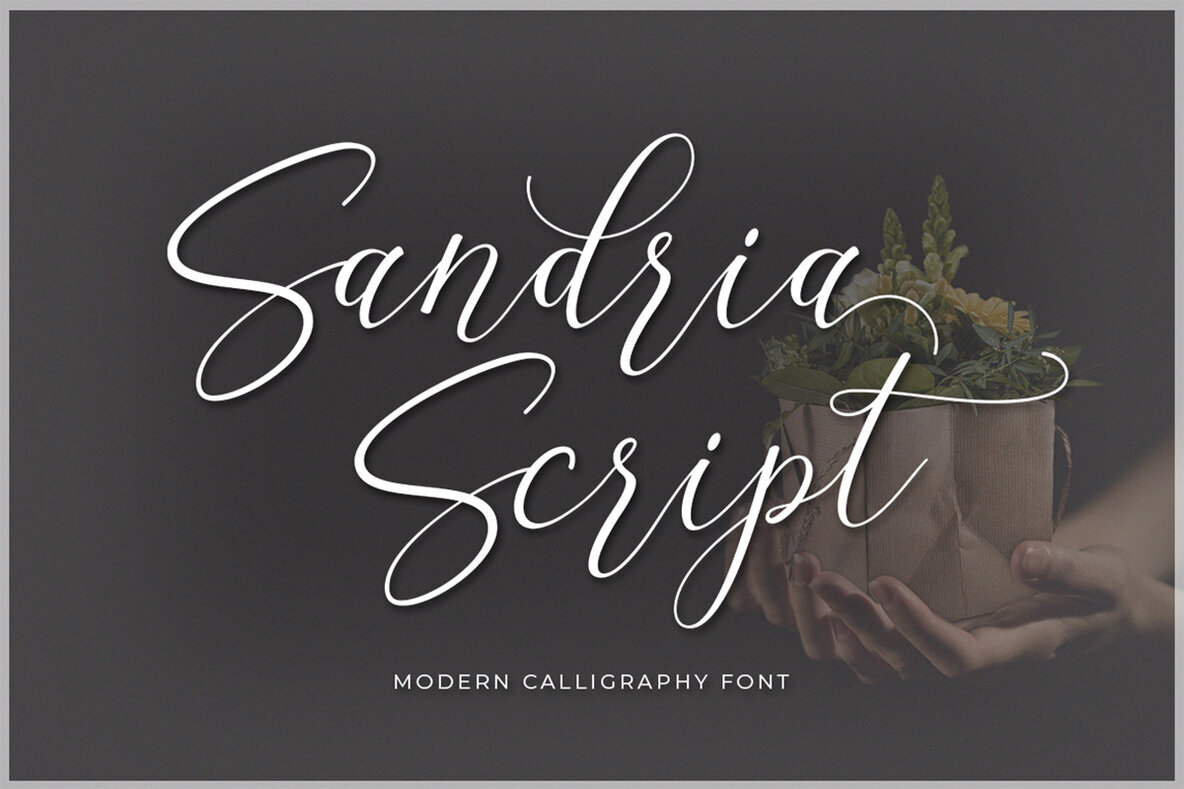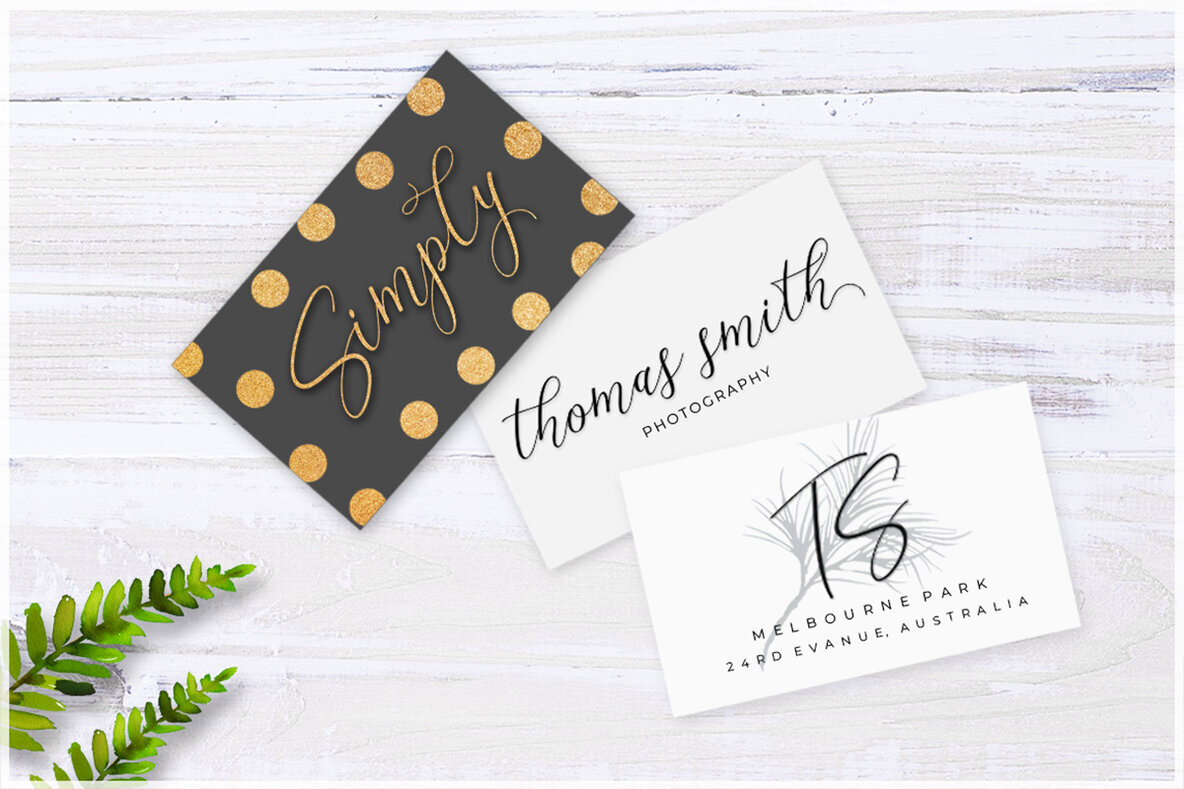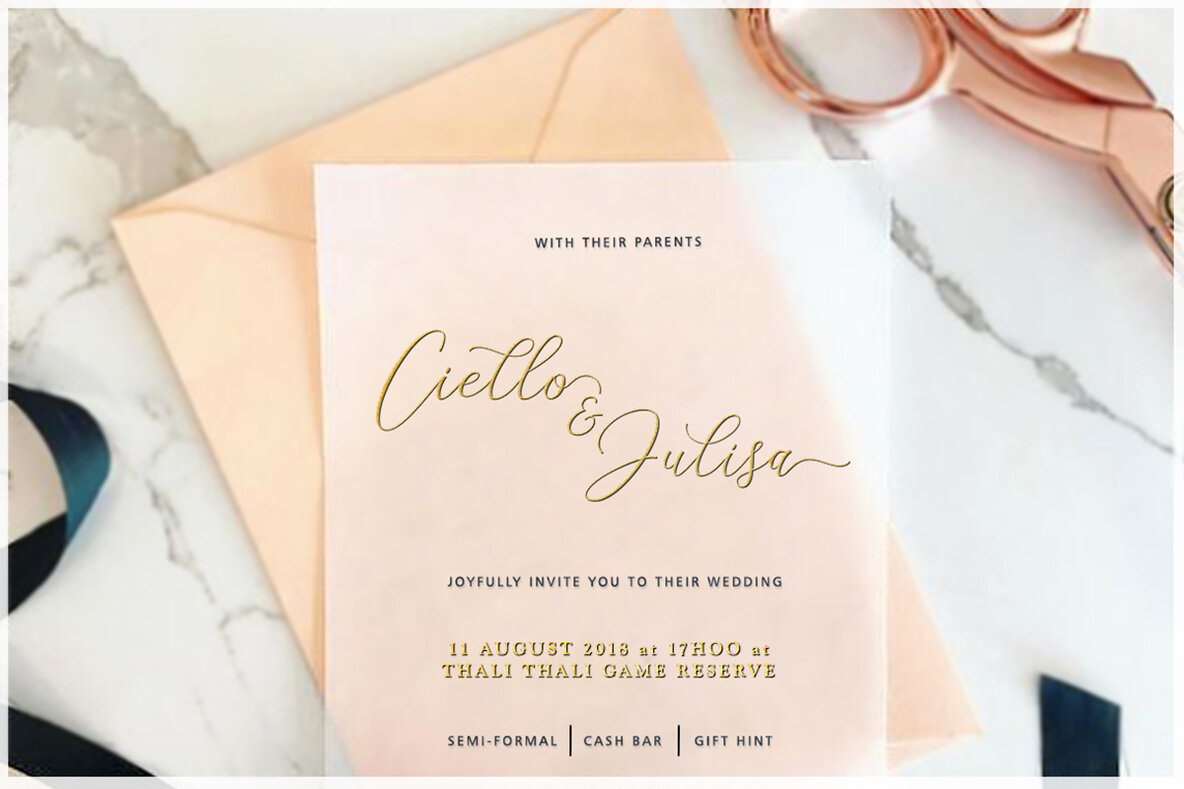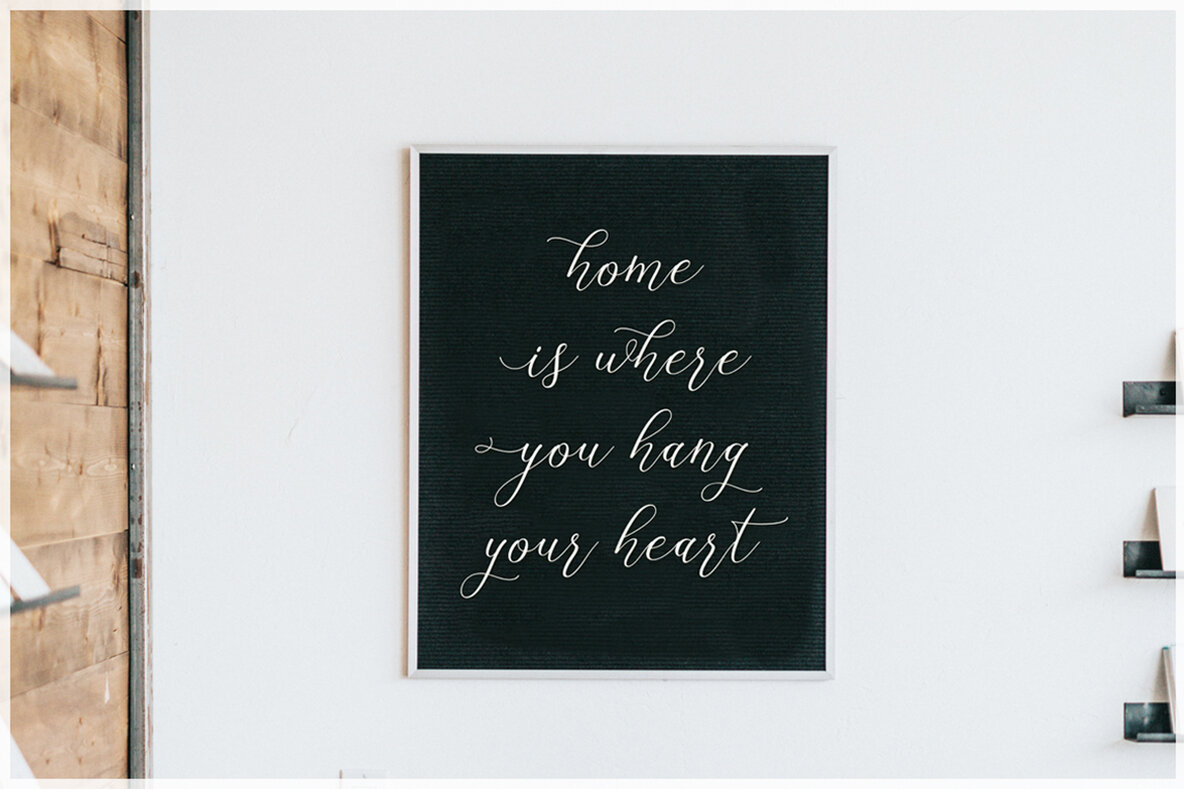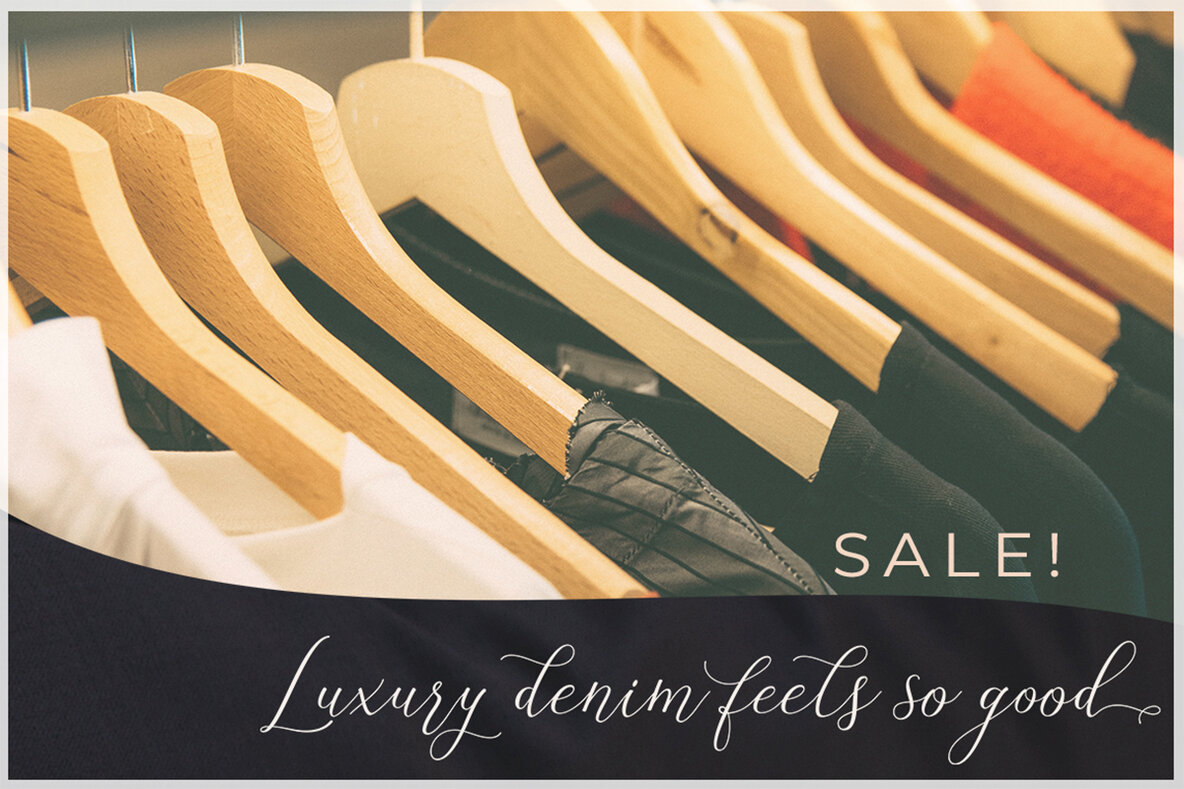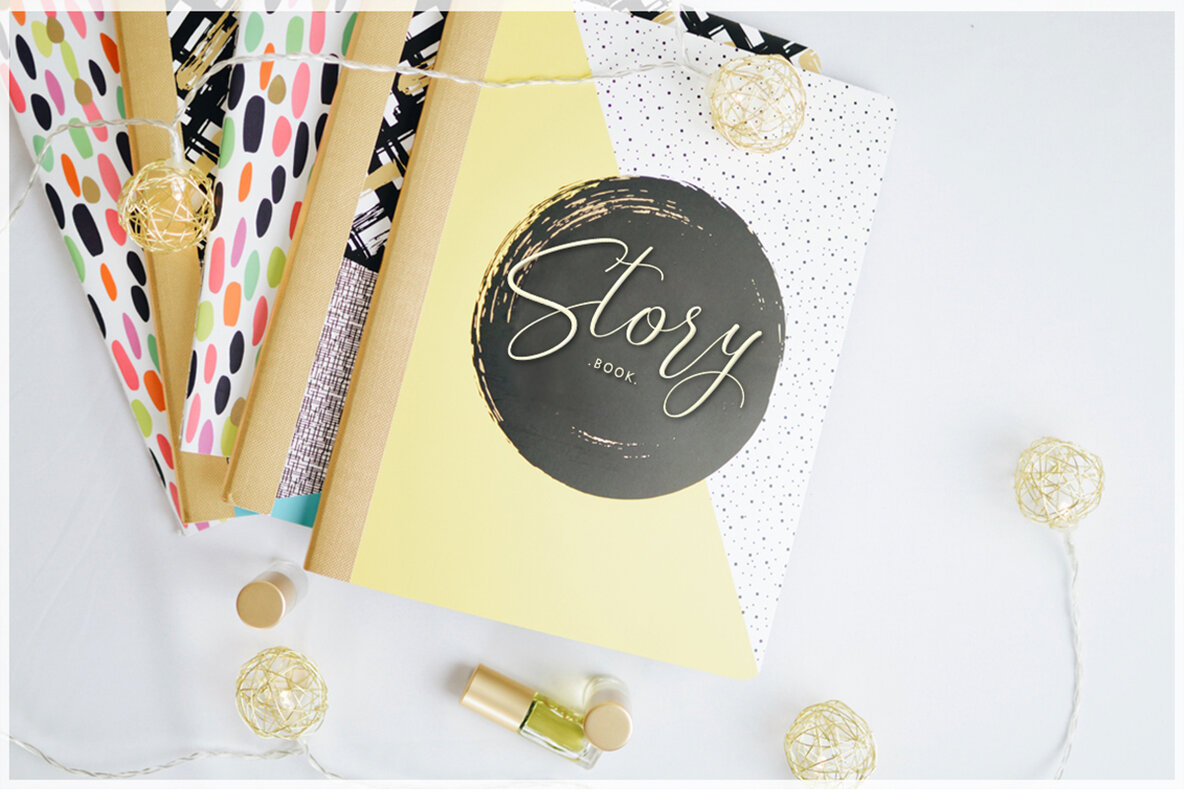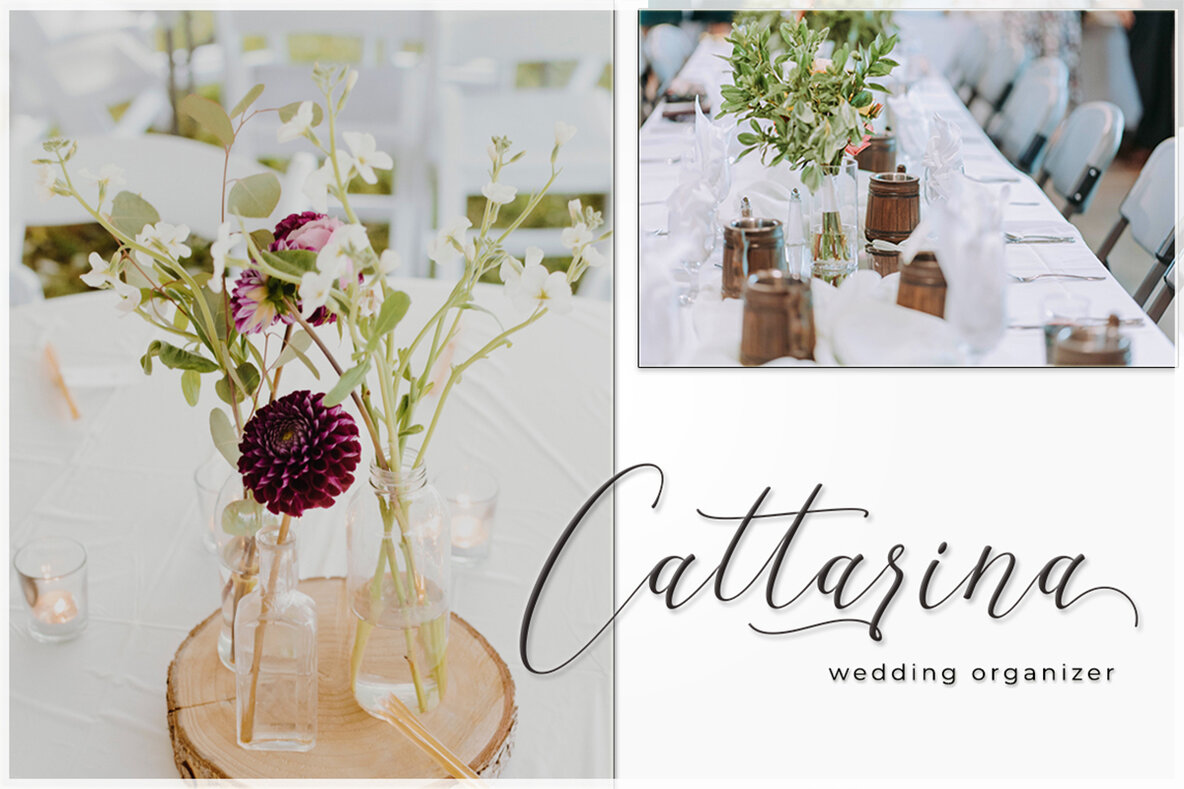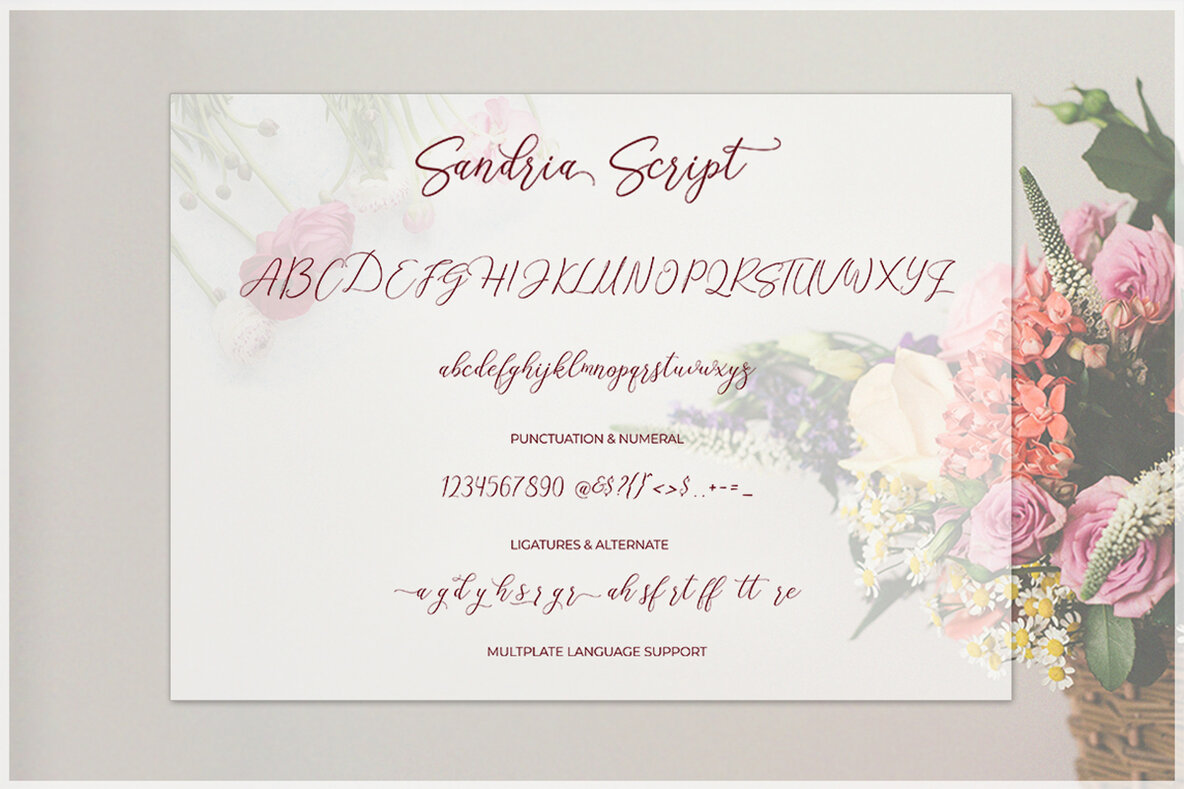
Sandria Script
Sandria Script offers a sweet interplay of casual calligraphy with a dynamic, dancing baseline. This newly styled typeface is perfect for projects ranging from branding and logos to greeting cards and wedding stationery. With its easy and versatile application, Sandria Script brings an elegant flair to quotes and a variety of other creative endeavors.Sandria Script: Dynamic Calligraphy for Elegant Designs